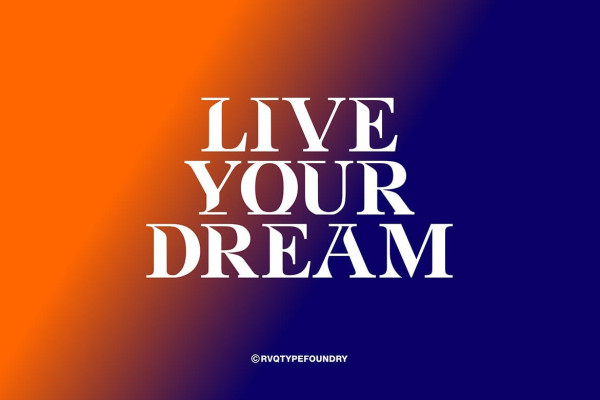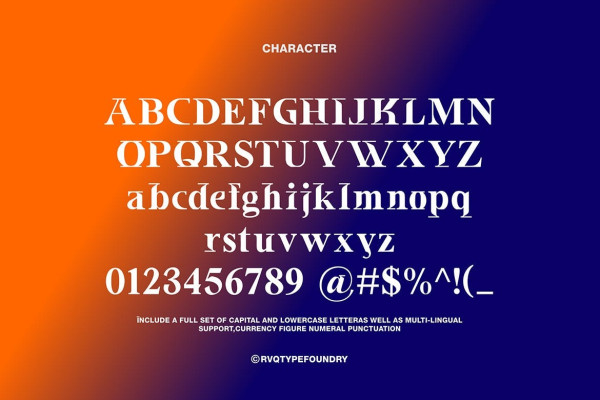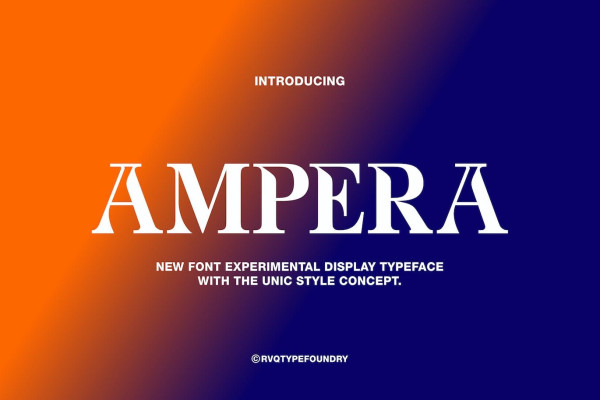
Ampera Font
Ampera Font is new font from Rvq type foundry, the font with unique experimental character set. To create the beautiful combination, just mix the uppercase then mix with the alternative glyphs. The Ampera display includes a full set of capital and lowercase letters, as well as multi-lingual support, currency figures, numerals, punctuation & some extra glyphs.